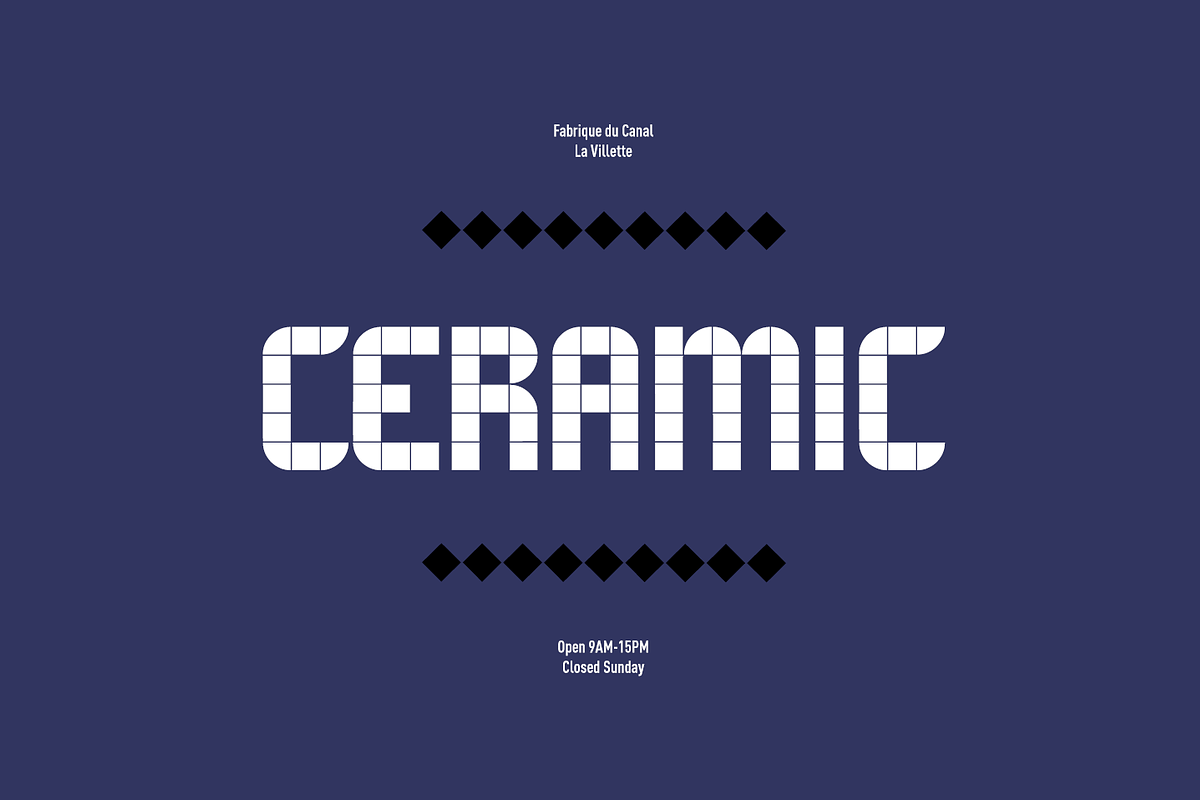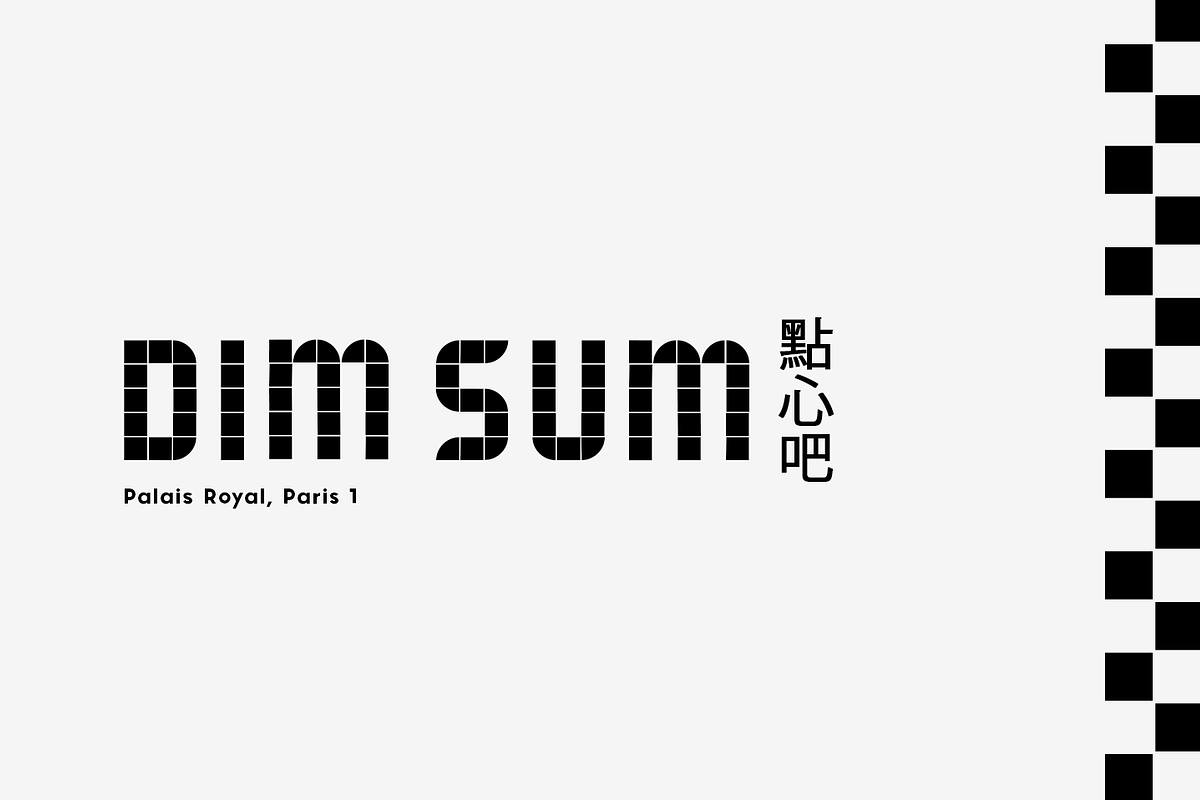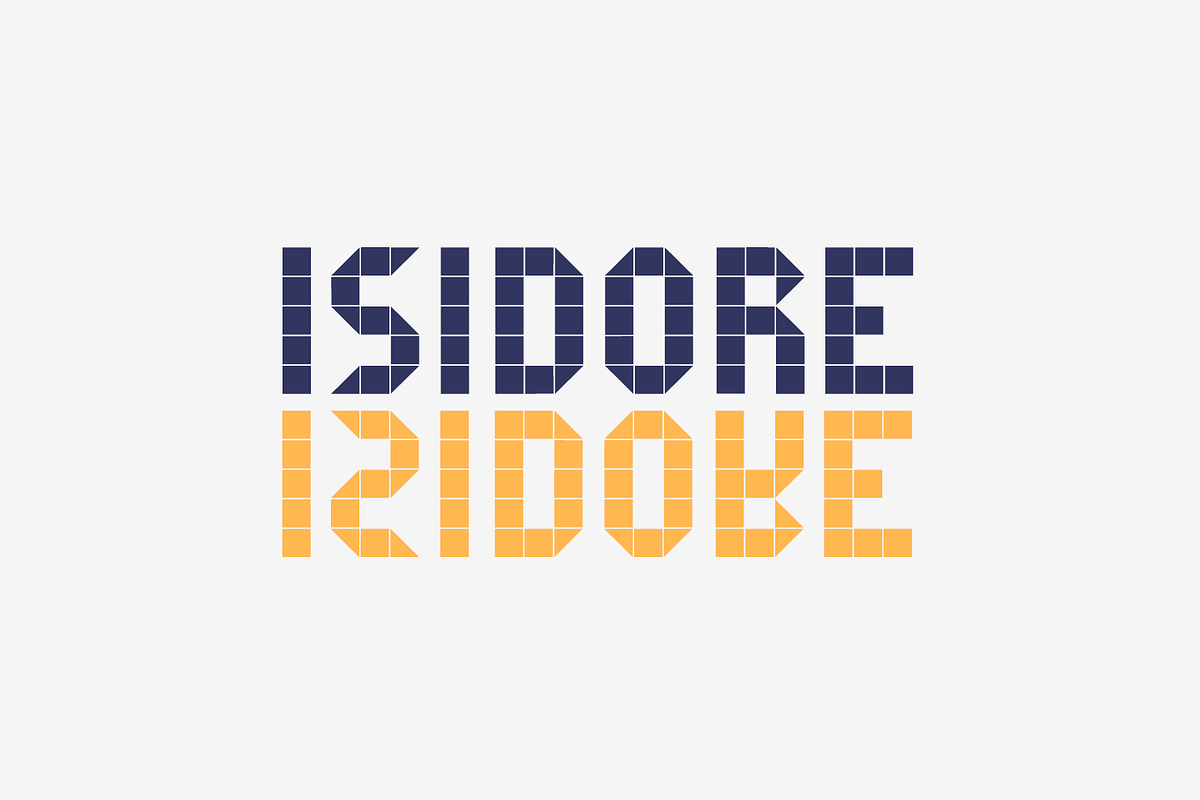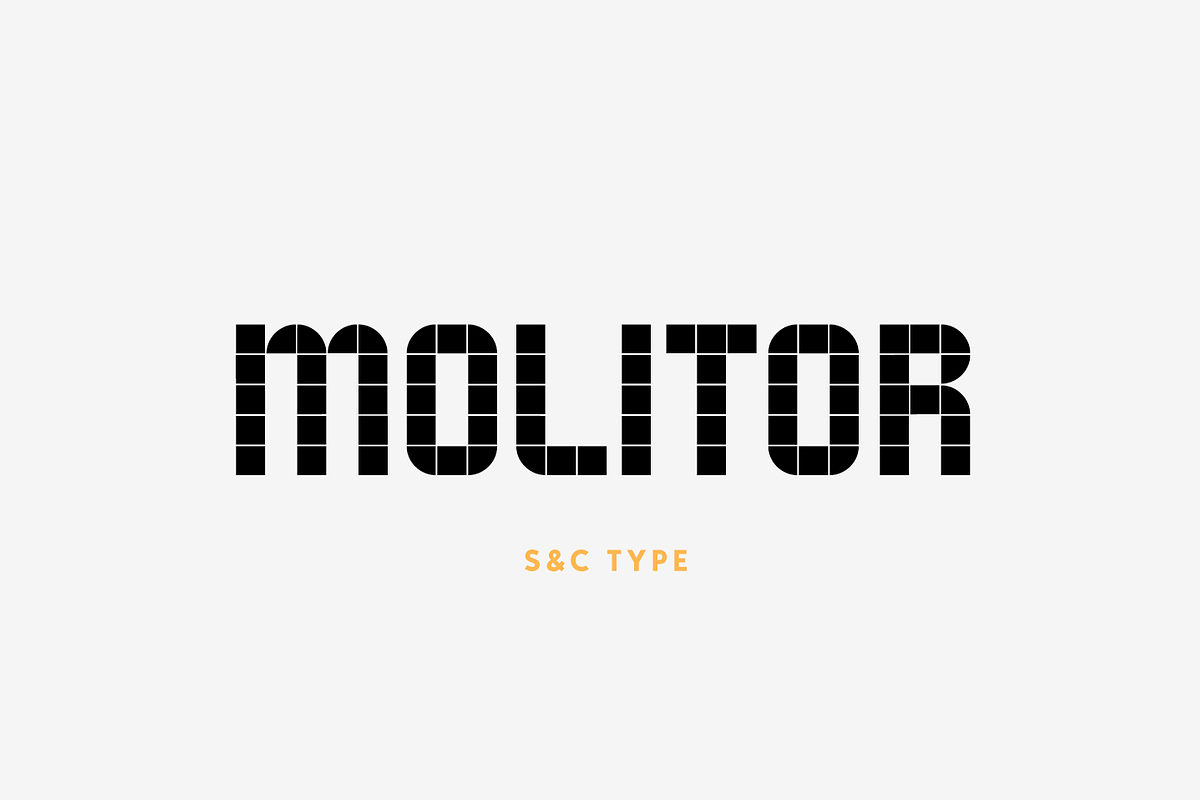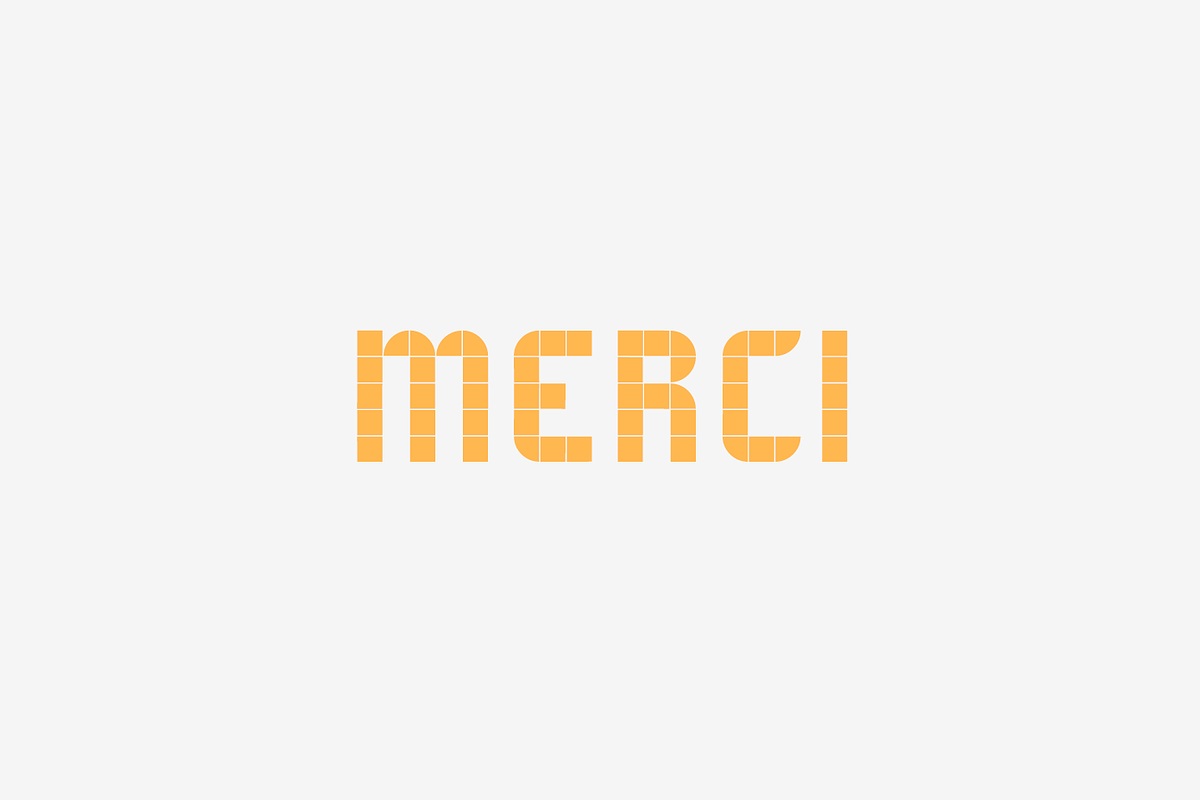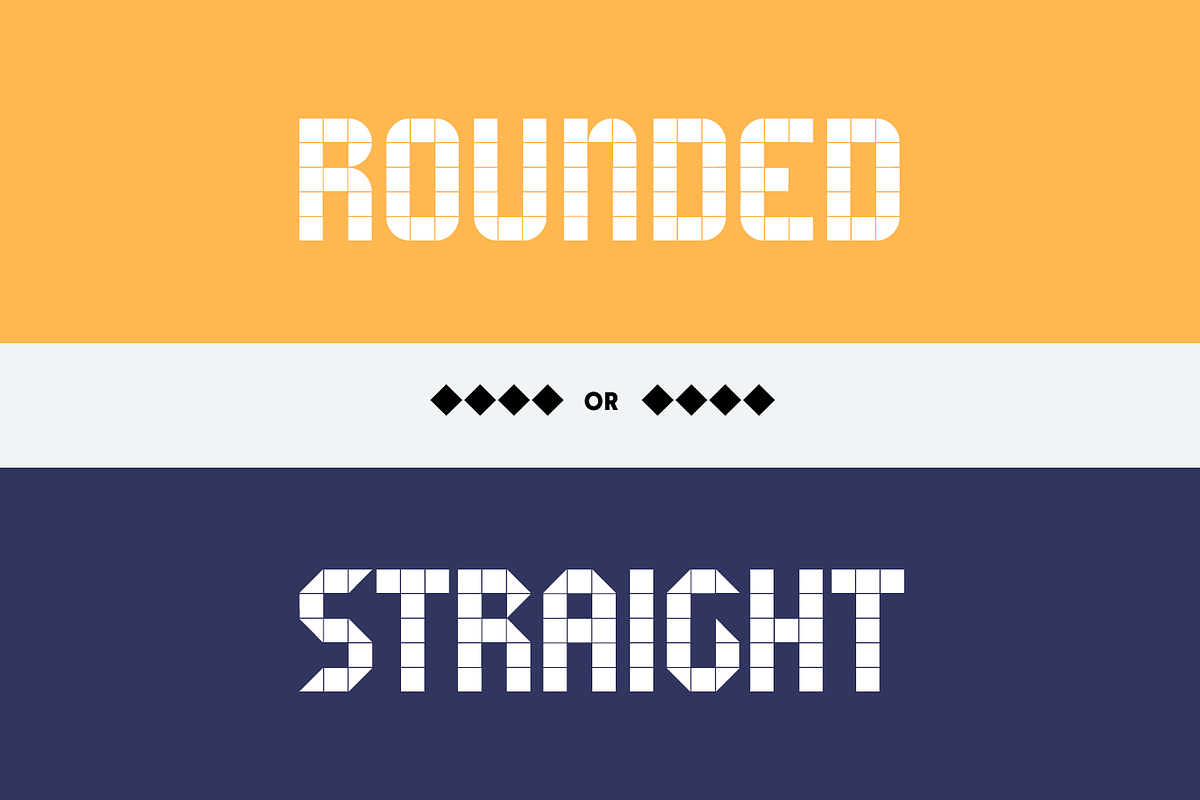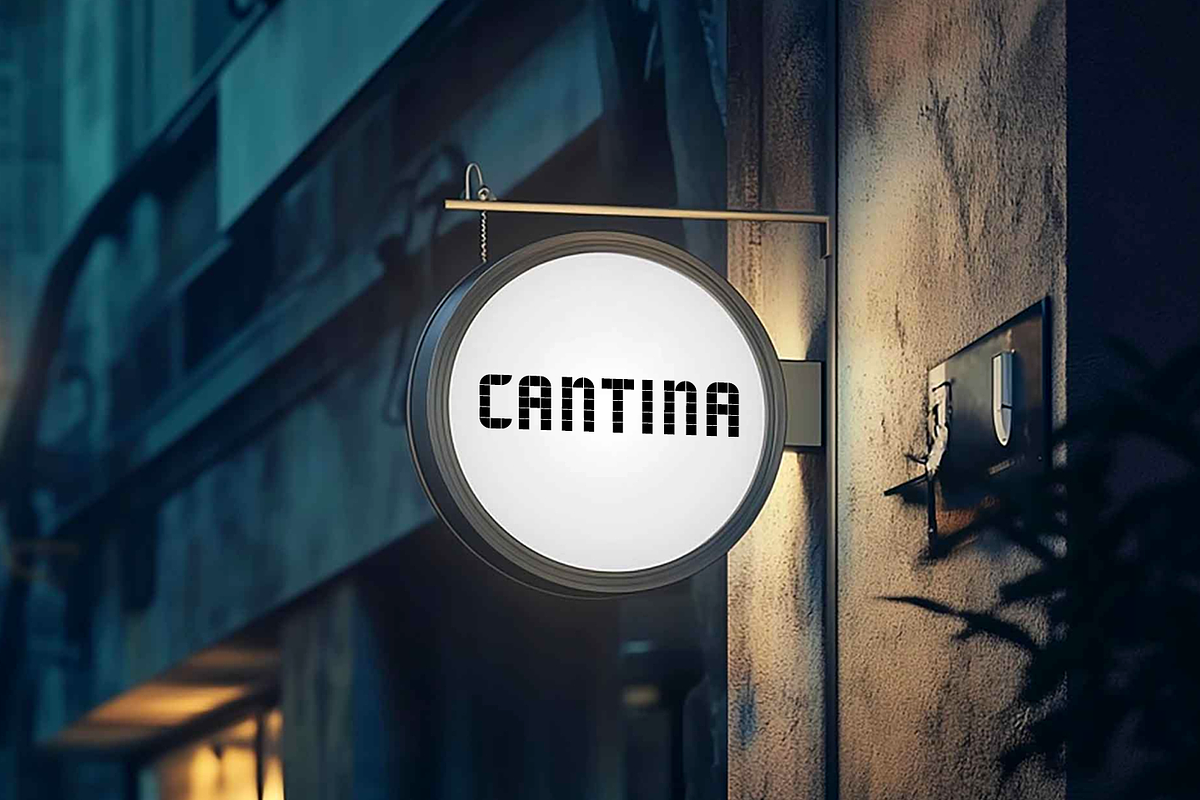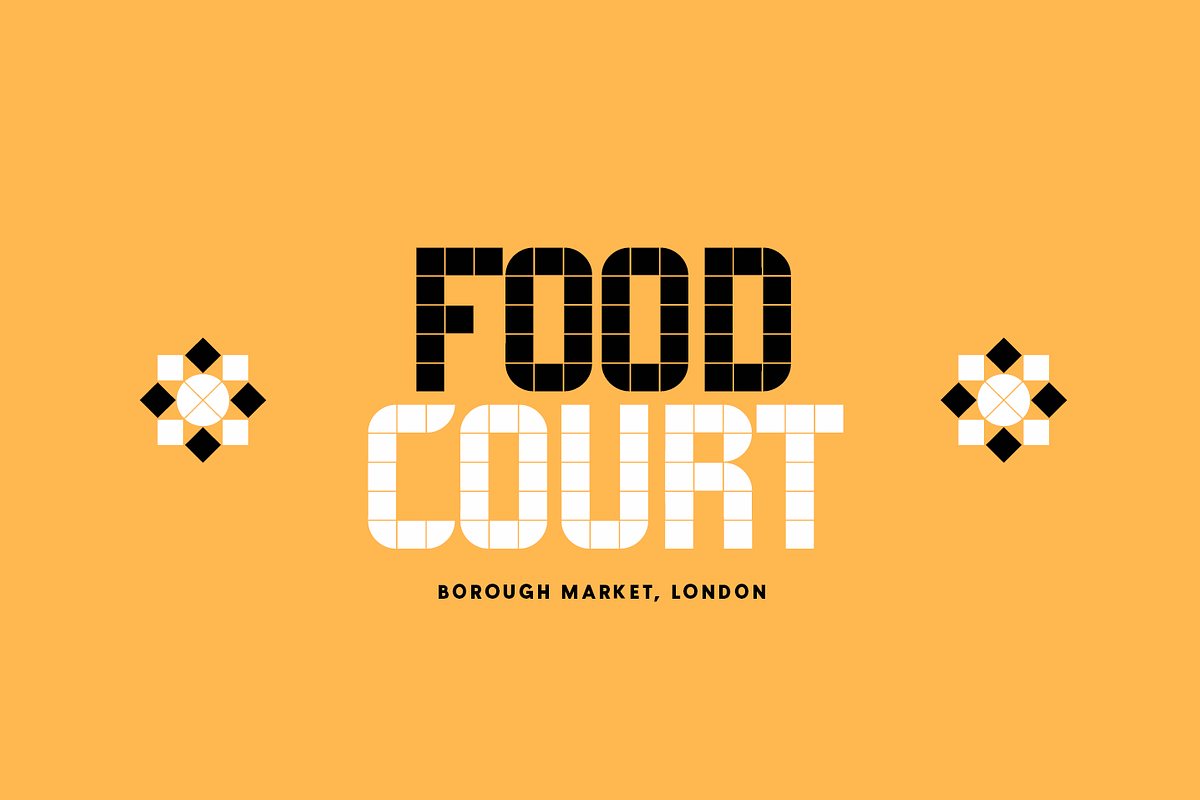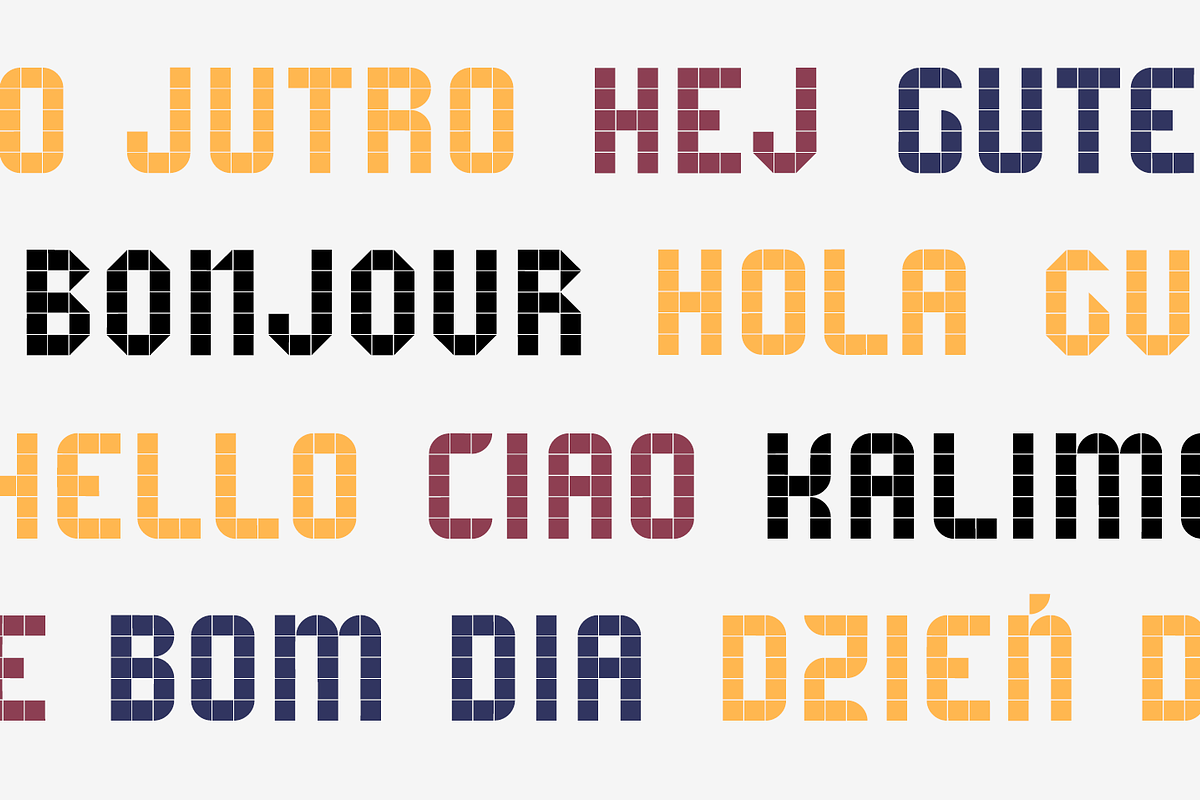
Molitor
Molitor is a font inspired by mosaic patterns, we wanted a geometric elegance, between modernity and craftmanship. You will find two variations:
- rounded version for softness and fluidity
- straight version for clean and structured look
With its versatility and bold characters, Molitor adapts to various contexts, from urban signage to restaurant menus or creative branding.